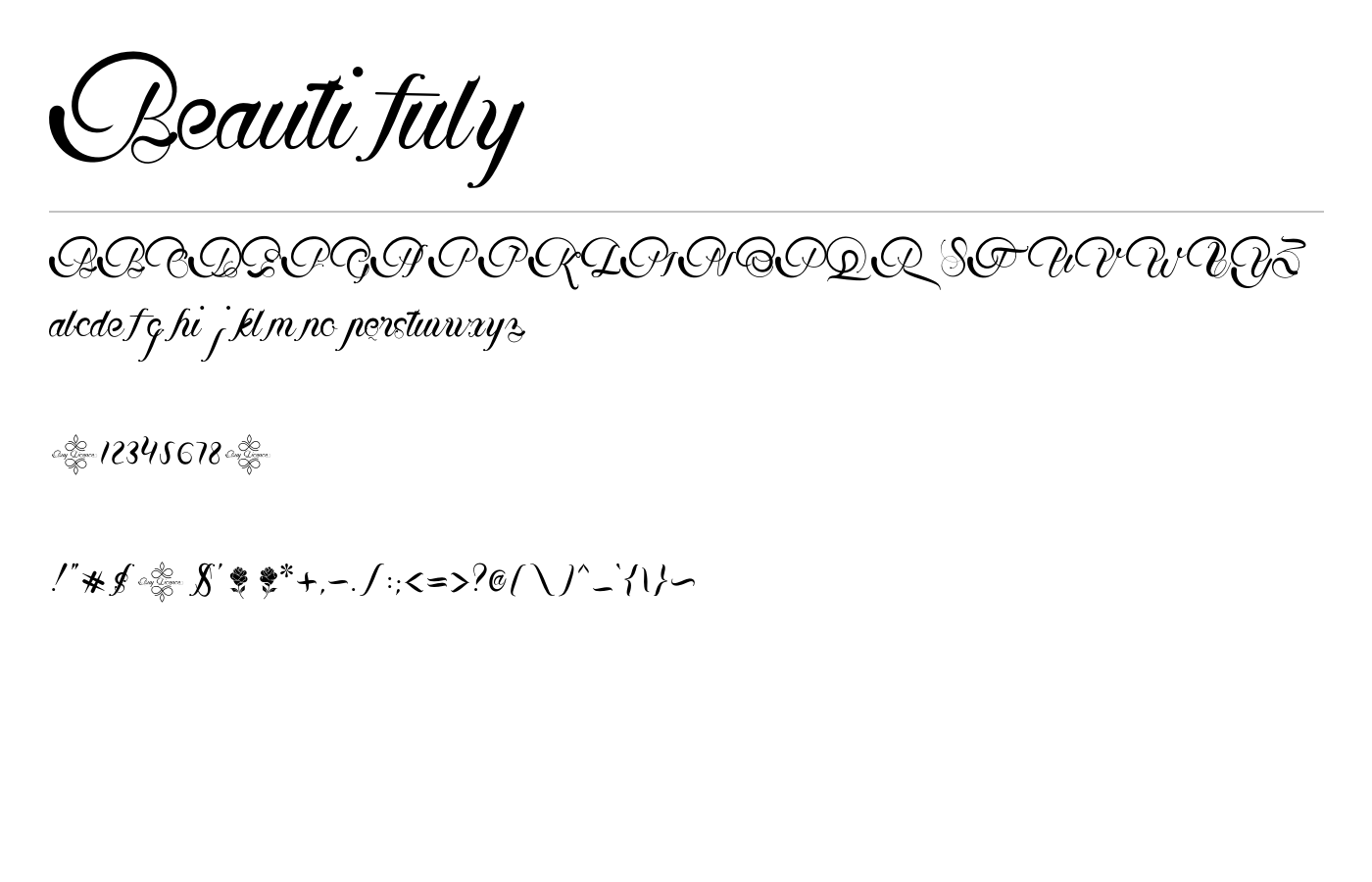
Beautifuly Font is an elegant script typeface characterized by its delicate, flowing strokes and decorative flourishes, especially in the uppercase letters. Its thin, graceful lines and high contrast create a refined and luxurious feel, perfect for sophisticated branding, wedding invitations, and upscale editorial design. This font shines best in headlines or display uses where its ornamental beauty can truly stand out.
Beautifuly Font
About Beautifuly Font